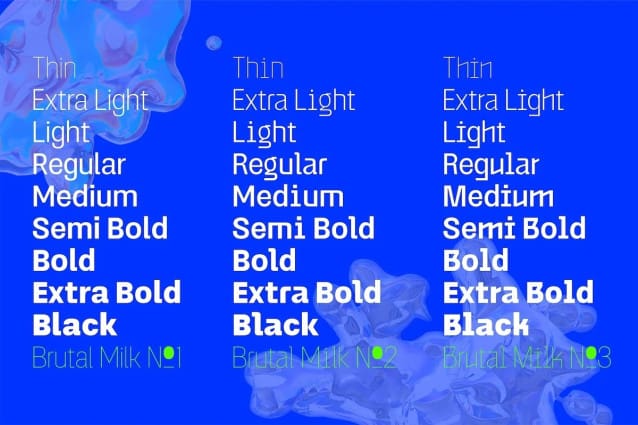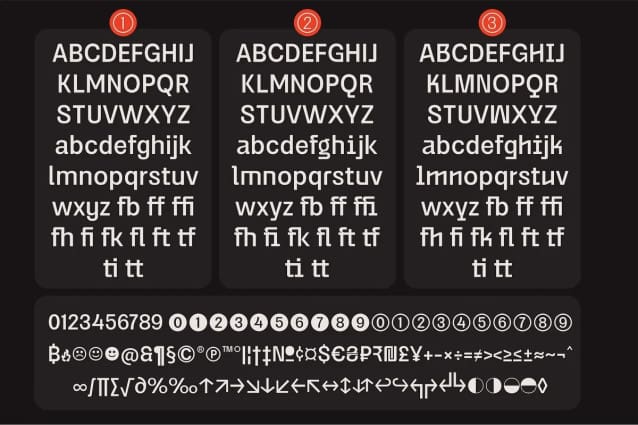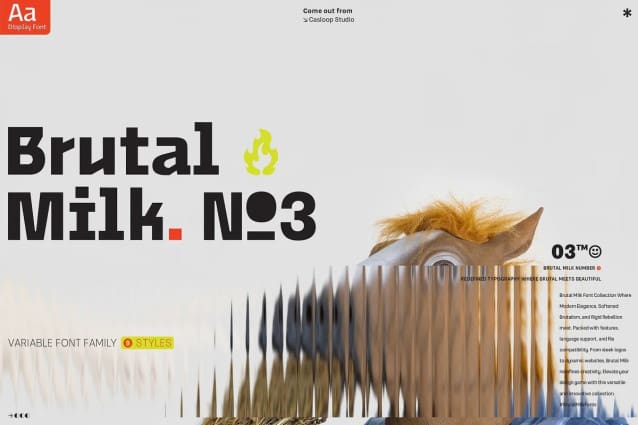
Brutal Milk No 3 Font Family – Brutal Milk Font Collection where prominence, trustworthiness, and sophistication converge.
Brutal Milk is a captivating grotesque typeface that seamlessly blends the robust aesthetics of brutalism with the sleek sophistication of Swiss Design and the nostalgia of Y2K. This collection featuring three distinctive variants – Brutal Milk No1, Brutal Milk No2, and Brutal Milk No3 – offers a unique typographic journey for extraordinary design.
Let’s break down what we present in this work
Brutal Milk No.1 | Modern Elegance with a Brutal Twist Aims for body text with the perfect balance of elegance and modernity. Brutal Milk No.1 is meticulously crafted for optimal readability, making it an ideal choice for a wide range of applications.
Brutal Milk No.2 | Softened Brutalism for Approachable Headers Aims for display/header text with a gentle and approachable impression. Brutal Milk No.2 is crafted to add a touch of warmth to your designs, making it perfect for conveying a friendly and inviting tone.
Brutal Milk No.3 | Rigid Rebellion for Prominent Headers Make a bold statement with headers that exude firmness. Brutal Milk No.3 is designed to capture attention with its rigid impression, injecting a sense of prominence and confidence into a visual identity.
The Features The Brutal Milk Font Collection comes loaded with features such as case-sensitive forms, discretionary ligatures, ordinals, fractions, denominators, numerators, superscripts, and scientific inferiors – ensuring flexibility in design needs.
Language Support From Western and Central European languages to South Eastern European, South American, Oceanian, and even Esperanto, Brutal Milk Collections caters to a diverse range of linguistic needs.
Brutal Milk stands as a testament to versatility and innovation. Whether you’re crafting a sleek logo, establishing a brand identity, adorning decor, creating impactful posters, delivering compelling presentations, designing dynamic websites, refining UI/UX experiences, or engaging in graphic design endeavour. The impressions it imparts—modern, minimal, youthful, funky, groovy, trendy, hip, fly, and undeniably cool—speak volumes about its adaptability to contemporary design trends.
Redefine the boundaries of creativity and immerse yourself in the dynamic world of Brutal.